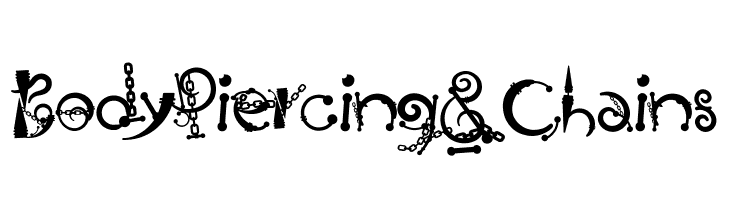
A whimsical, decorative font with elegant swirls and curls.
A dynamic and edgy font with sharp, flowing strokes and a bold presence.
A whimsical, hand-drawn font with playful, irregular strokes.
A bold, geometric font with angular lines and a futuristic style.
A bold, distressed font with a rugged, weathered appearance.
A bold, shattered glass effect font with a modern and decorative style.
A playful, rounded font with smooth curves and uniform stroke width.
A playful, ice cream-themed decorative font with bold, rounded characters.
Hand-drawn icon font with playful, detailed illustrations.
A bold, decorative font with a textured, diagonal line pattern.
A distressed, grunge-style font with a textured, vintage appearance.
A playful, hand-drawn font with a whimsical and informal style.
A bold, distressed font with jagged edges and a turbulent, rebellious style.
A jagged, edgy font with a hand-drawn appearance and sharp, angular lines.
A bold, decorative font with stars and stripes, ideal for standout designs.
A bold, distressed font with a rugged, stencil-like appearance.
A whimsical font blending serif and script styles with playful curves.
A bold, decorative font with a vintage, high-contrast style and elegant serifs.
A bold, angular font with sharp, dynamic edges for a striking visual impact.